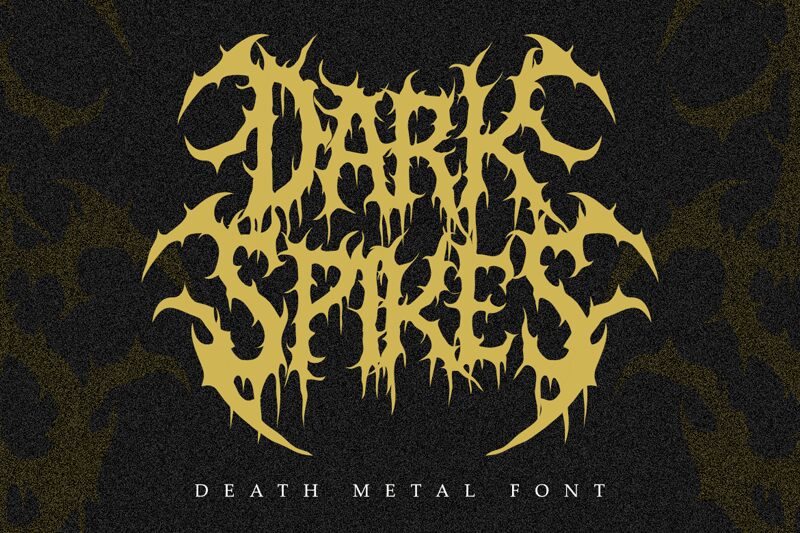
Dark Spikes font by Muhammad Yafinuha is a free Gothic font that brings spikes, chaos, and aggressiveness into its dramatically aggressive forms. Each character seems turned into a weapon, an intimidating tool to be used both separately or as part of a much more powerful whole.
Even though the style of the chaotic letters is rarely used in long texts, they’re a charming addition to all heavy metal and gothic artwork. Let your audience succumb to the darkness of Dark Spikes with posters for gothic concerts or festivals, apparel items including shoes, t-shirts, and hoodies, album covers, books and magazine covers, tattoo designs, logo and branding designs, etc.